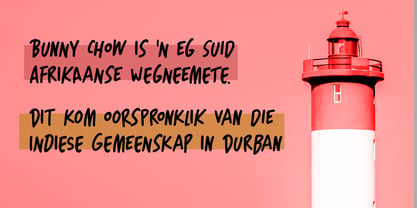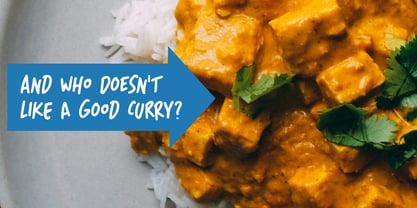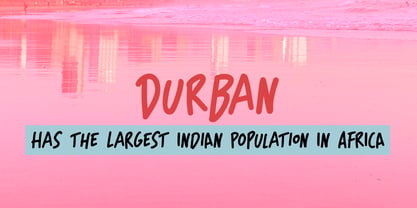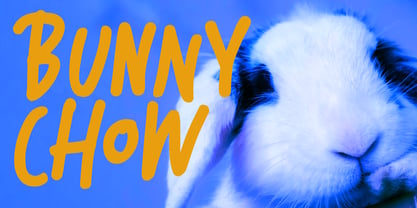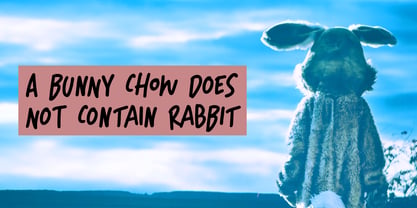
Bunny Chow Pro
por Hanoded
La familia tipográfica Bunny Chow Pro fue diseñada por David Kerkhoff y publicada por Hanoded. Bunny Chow Pro contiene 2 estilos y opciones de paquete familiar. Más información sobre esta familia
A Bunny Chow is a South African/Indian snack. It consists of half a hollowed-out loaf of white bread, filled with chicken, beef or mutton curry. It is crazy delicious! I have had a couple when I was hitch-hiking through South Africa (a looooong time ago) and I have been craving one ever since.
Bunny Chow font is a handmade font. Kind of loose, kind of crazy, but delicious, and once used, you’ll want more!
Acerca de Hanoded
Hanoded is run by Dutchman David Kerkhoff. His fonts are a mishmash of styles, as he just creates whatever pops into his head. You will find a lot of brush fonts in his collection, as his favourite tools are brushes and Chinese ink, with cartoon style fonts and script fonts complementing his repertoire. Aside from making fonts, David occasionally guides tours in far-flung places, renovates his '30's house and tries reasoning with his wife and (teenage) kids. Not an easy task!